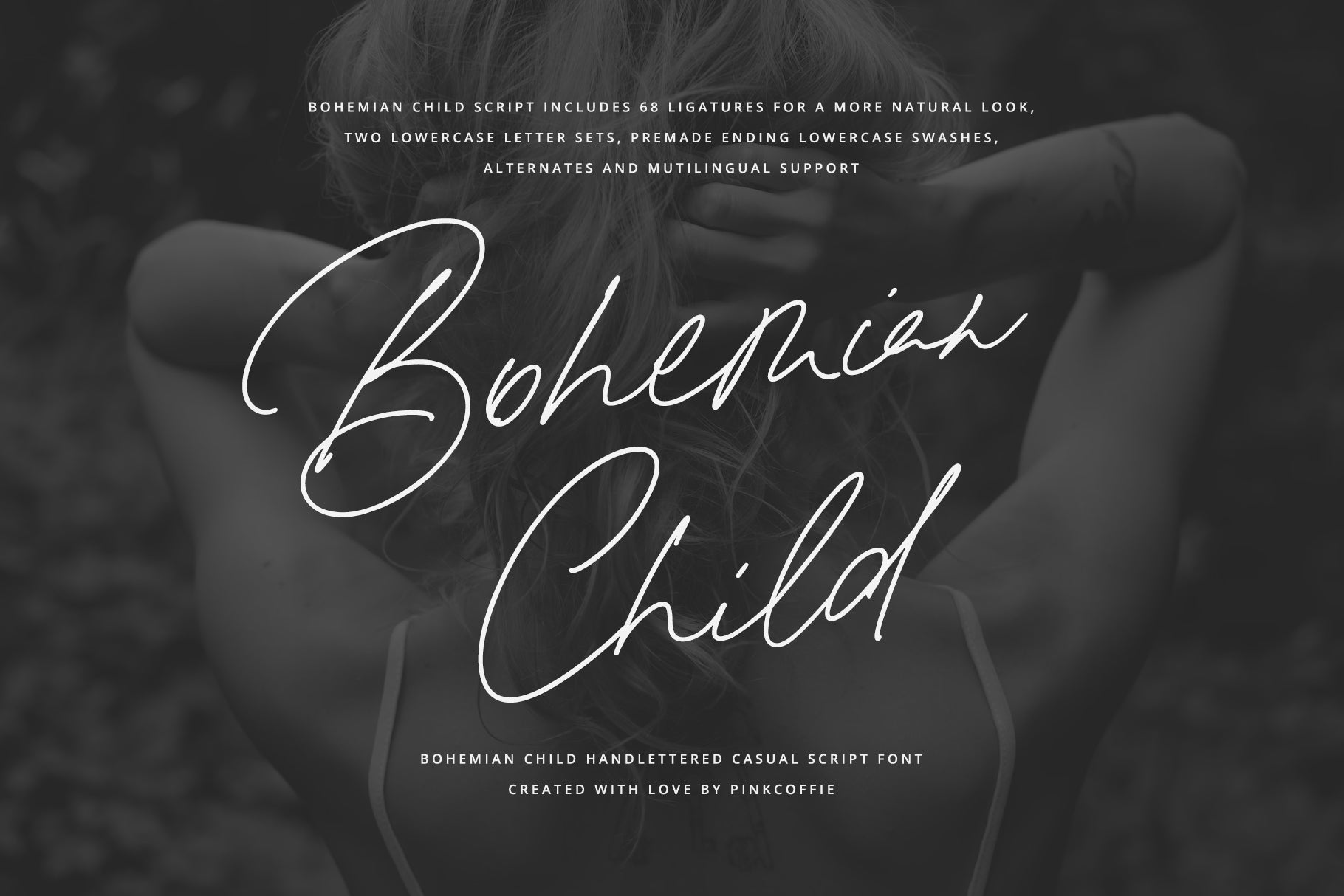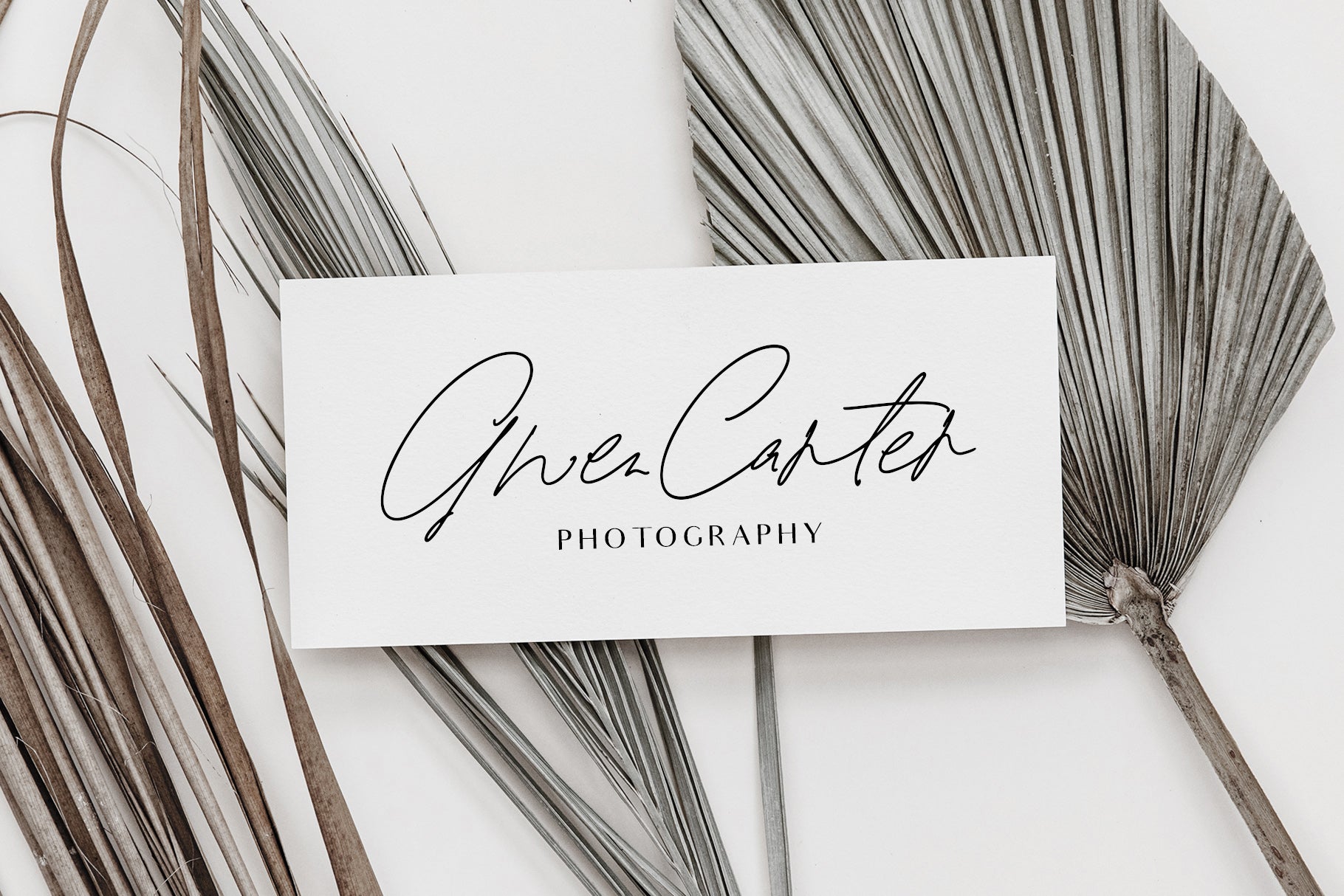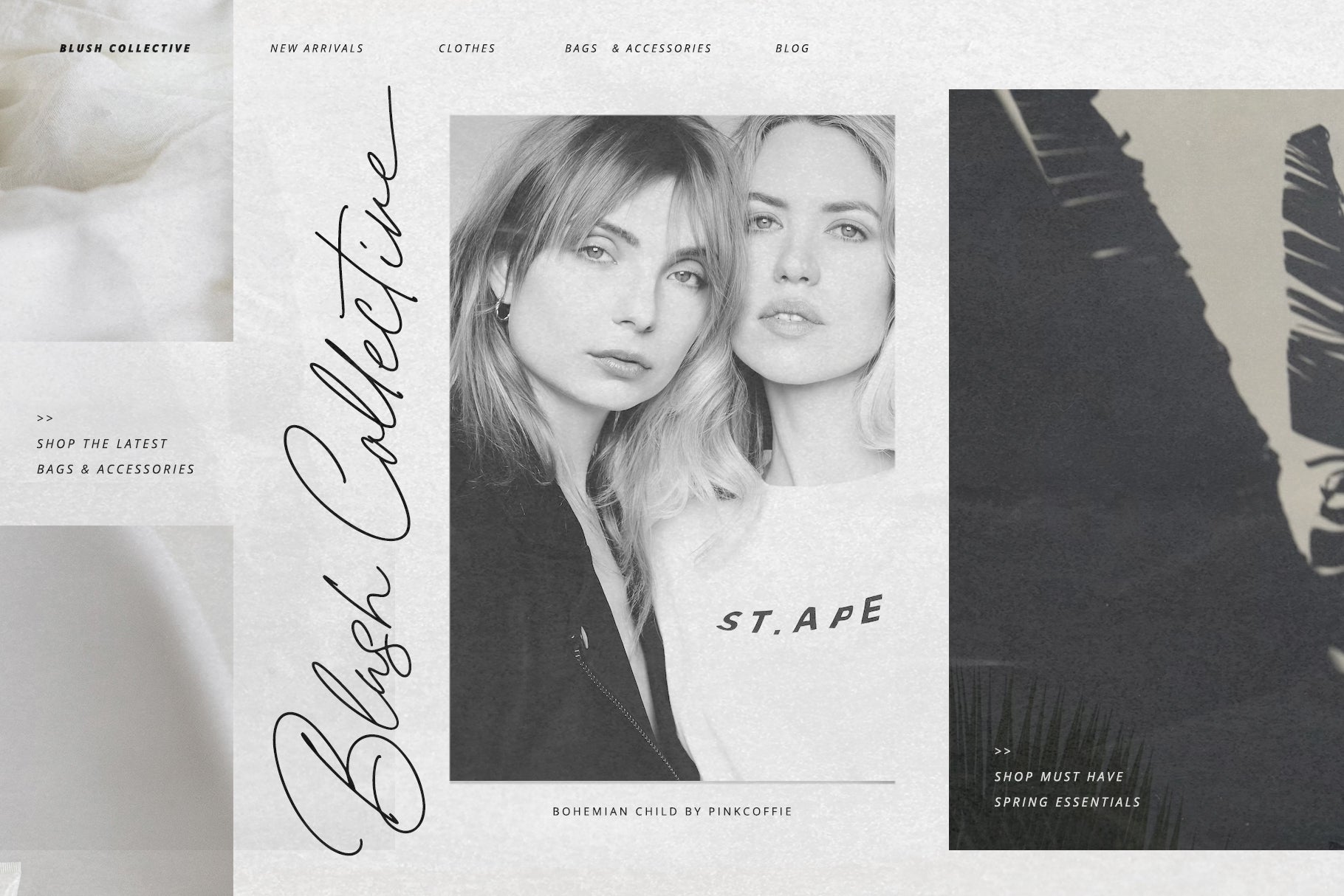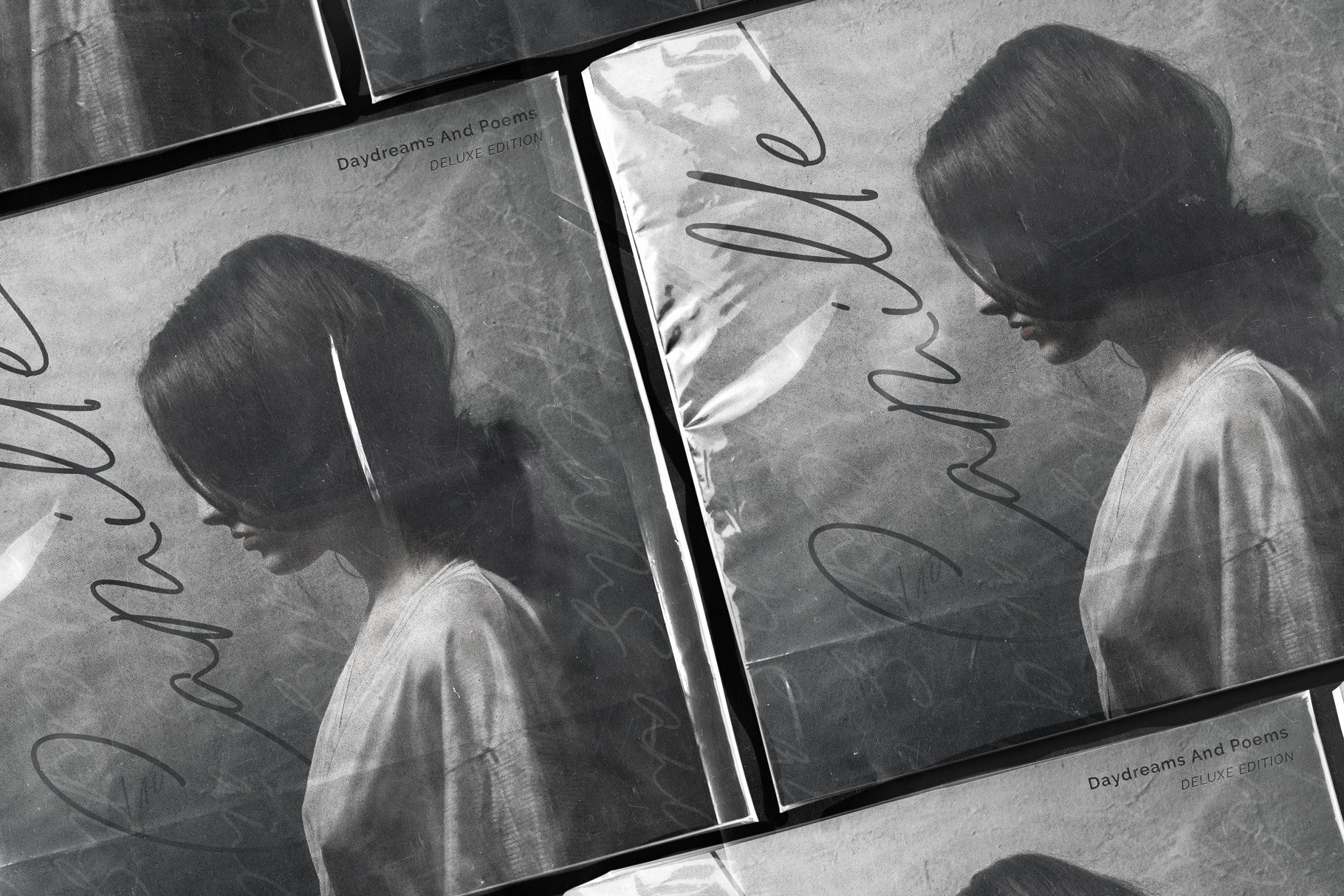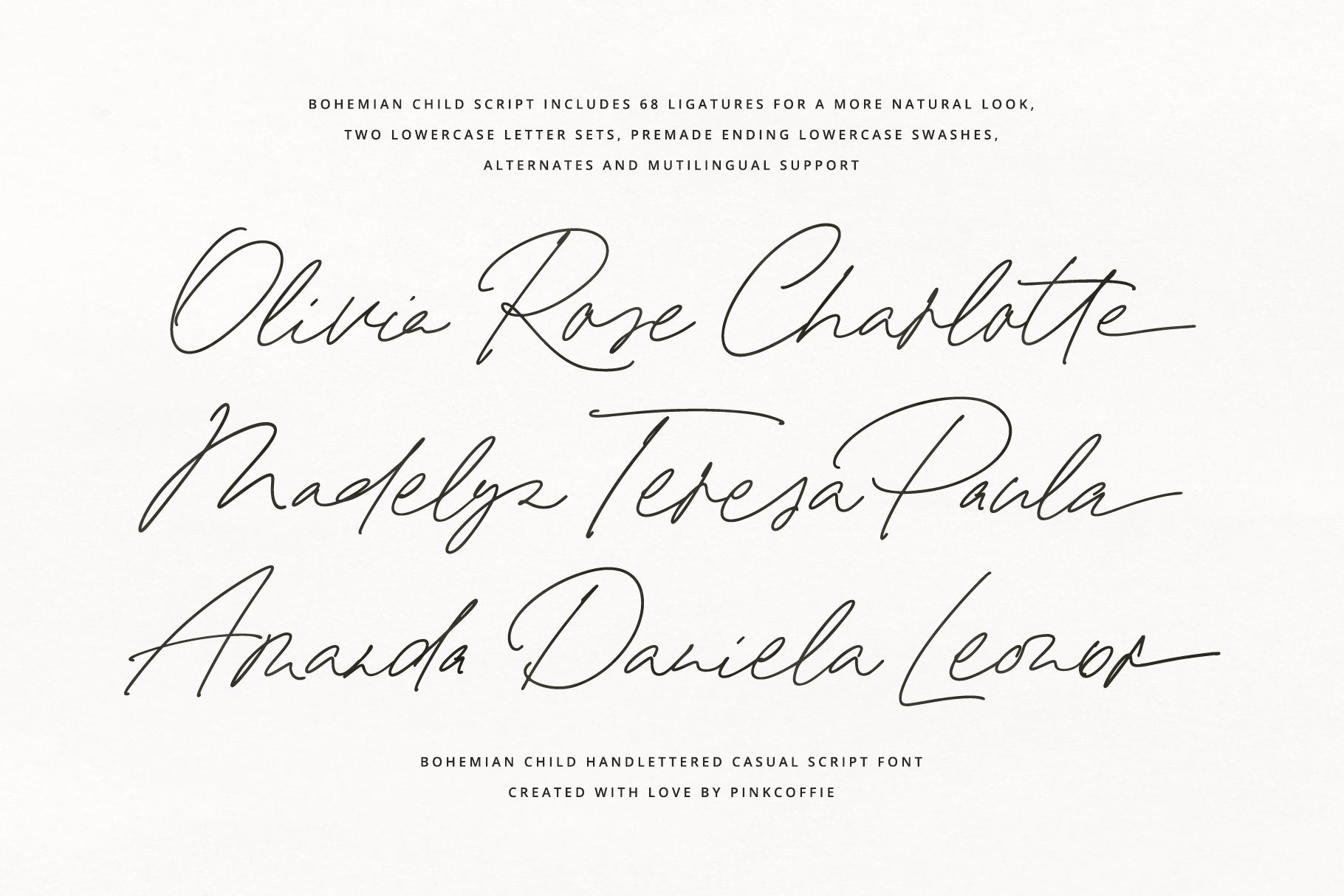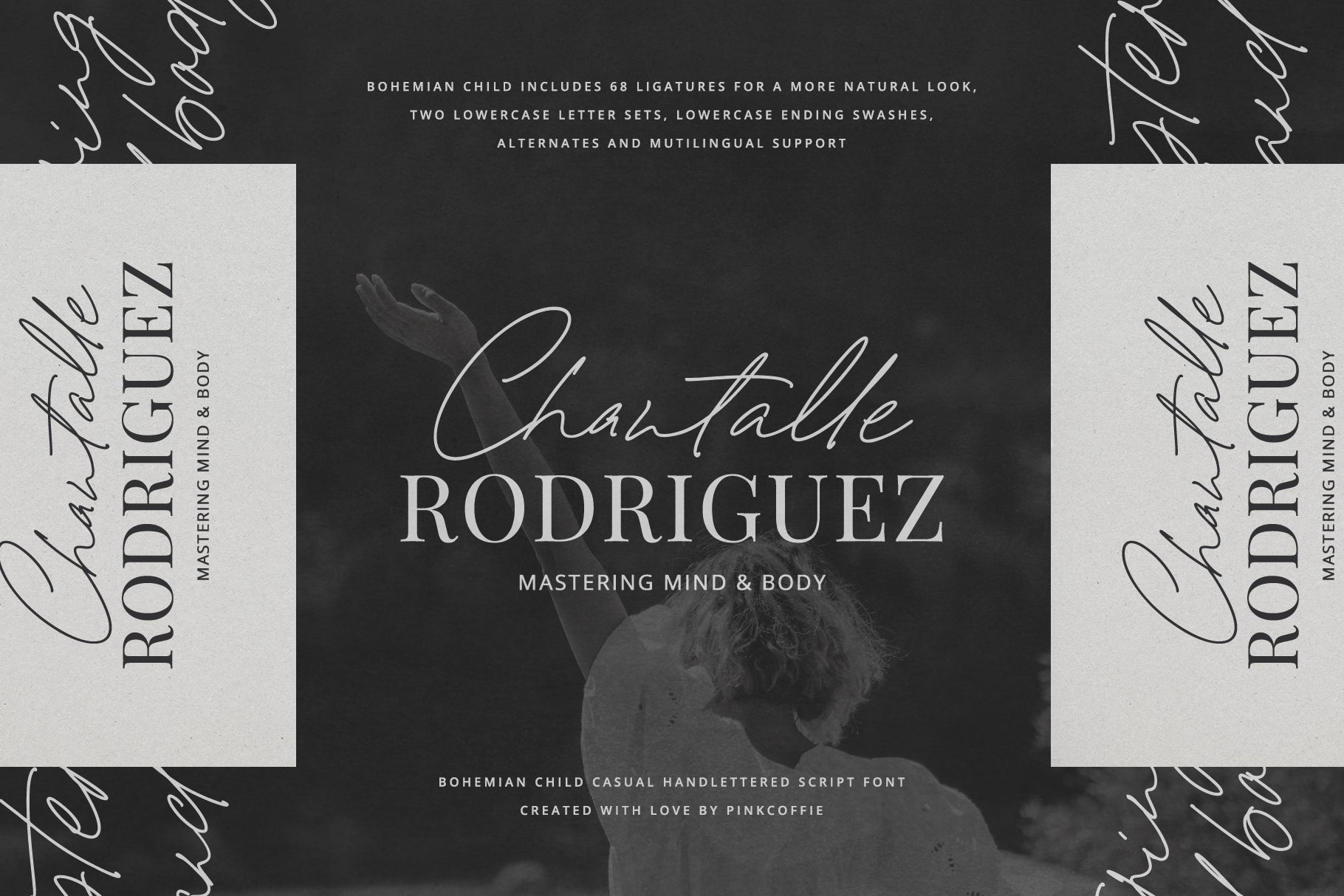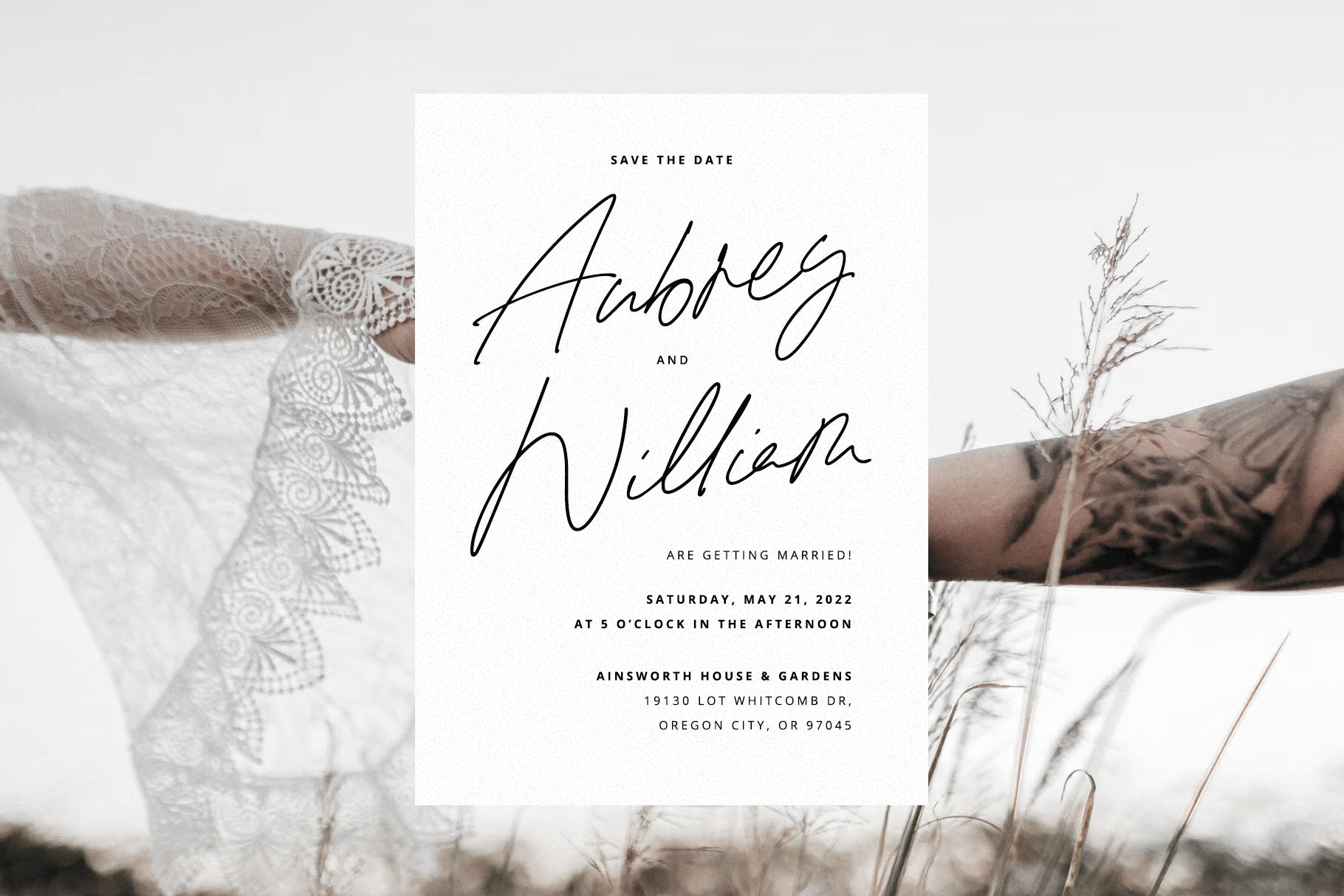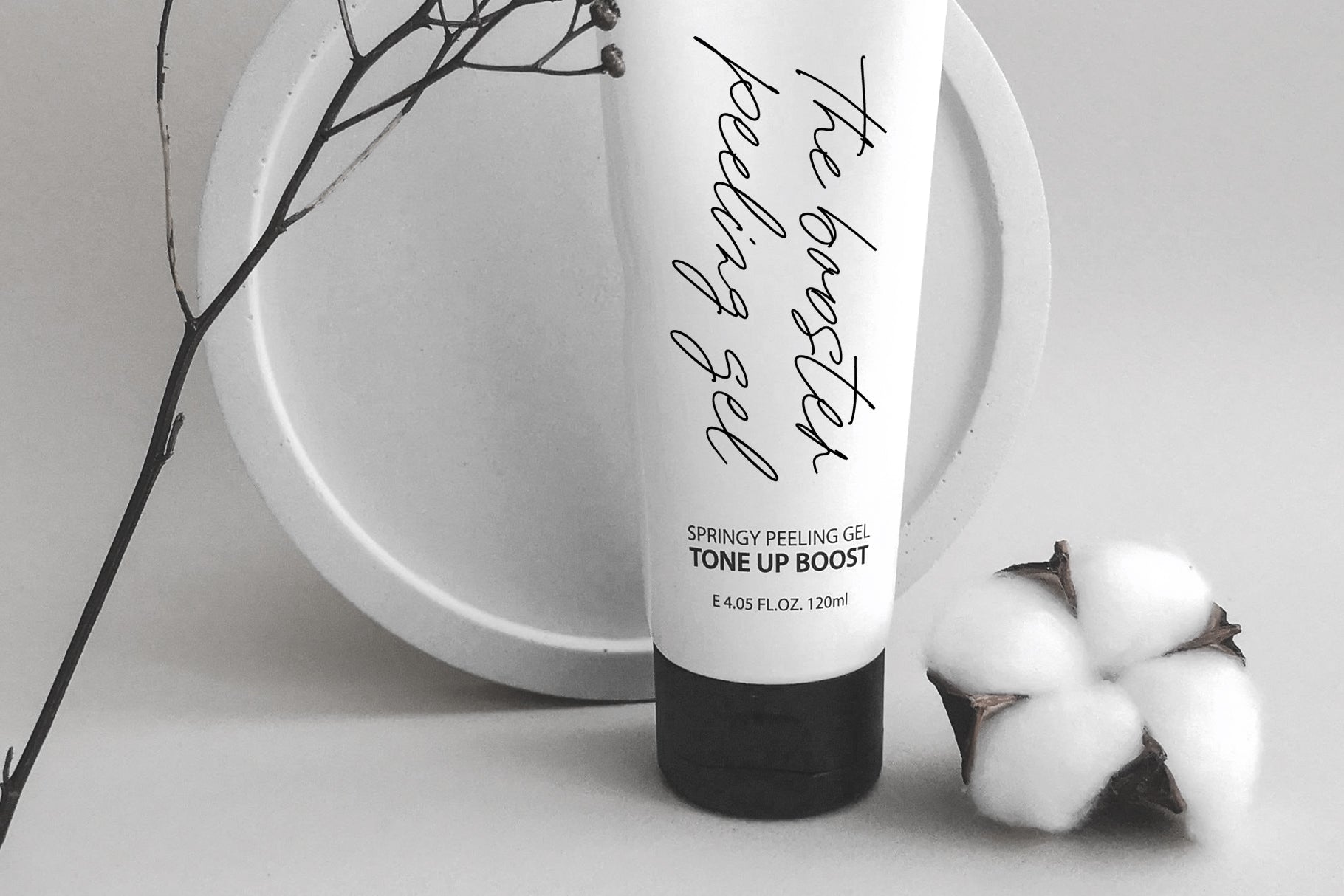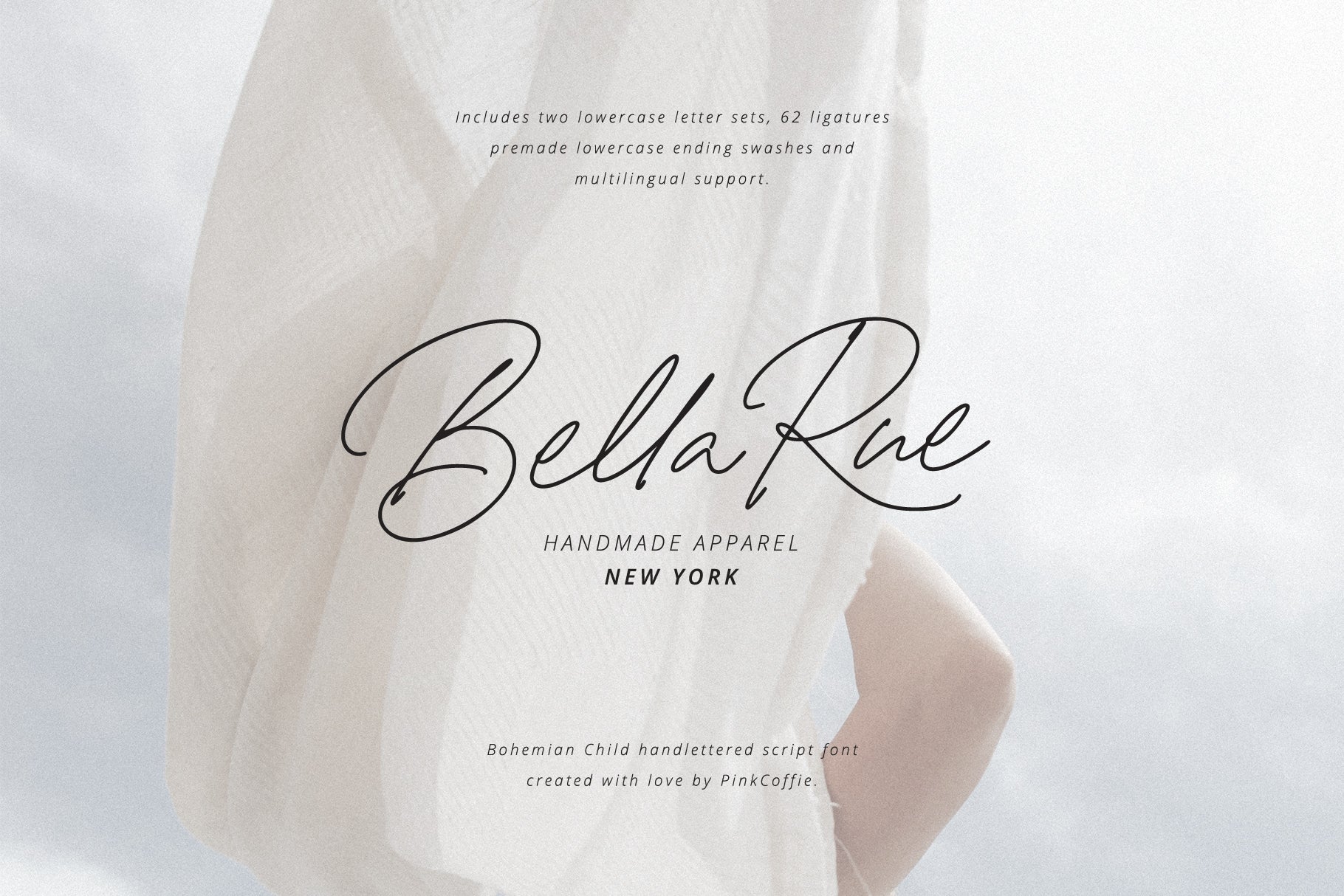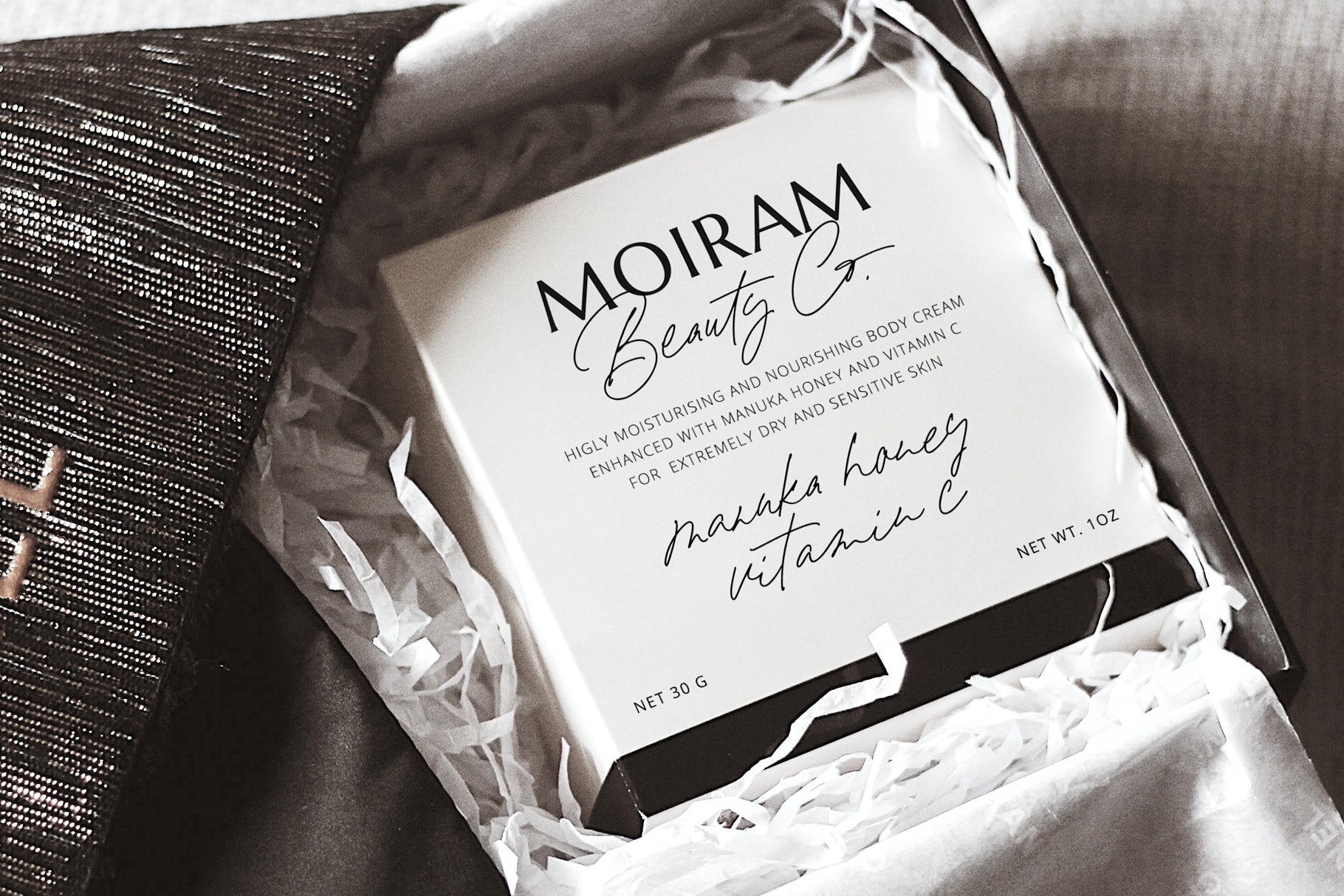
Bohemian Child
Say hello to Bohemian Child, a casual chic, modern hand-lettered script font inspired by the carefree bohemian vibe, featuring two lowercase letter sets, 64 extra OpenType ligatures for a more natural look, bonus letter alternates, and premade ending swashes to mix and match.
- Bohemian Child - main font containing all characters and OpenType features such as two lowercase letter sets, 64 ligatures, and premade lowercase ending swashes.
- Bohemian Child Alt - Secondary font featuring the alternate lowercase letter set instead of the regular lowercase set.
- Bohemian Child Swashes - bonus font including the lowercase ending swashes only, created for font preview purposes.